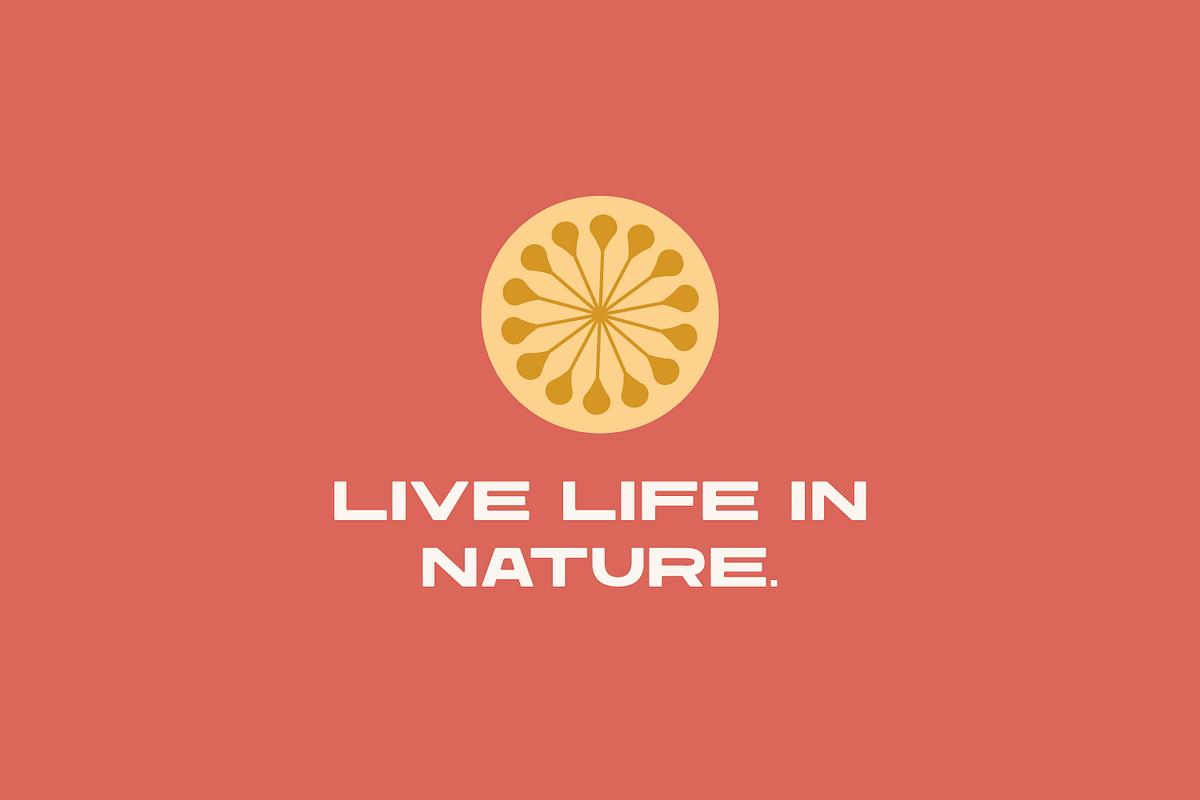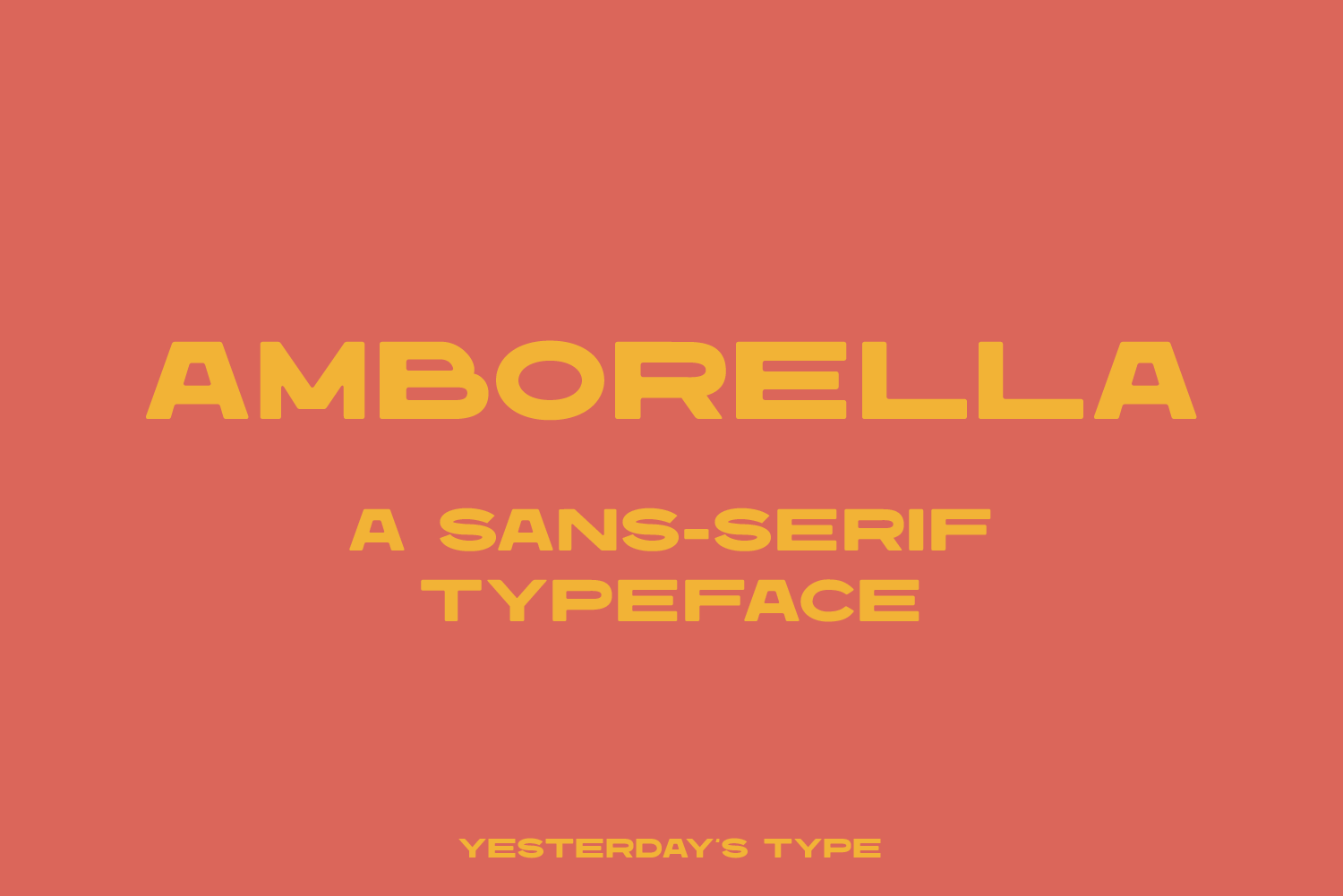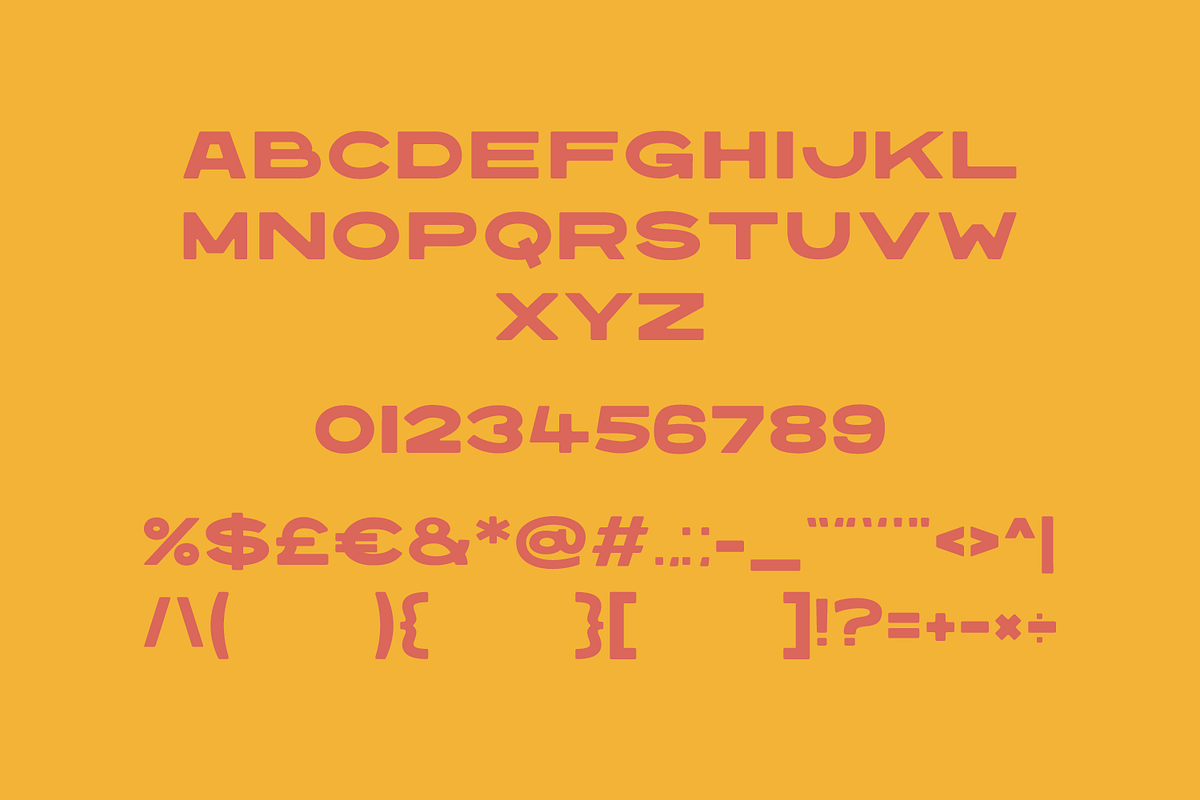
Amborella | Wide Display Typeface
Introducing 'Amborella' - a wide display typeface.
- capitals A-Z
- numbers 0-9
- punctuation and special characters